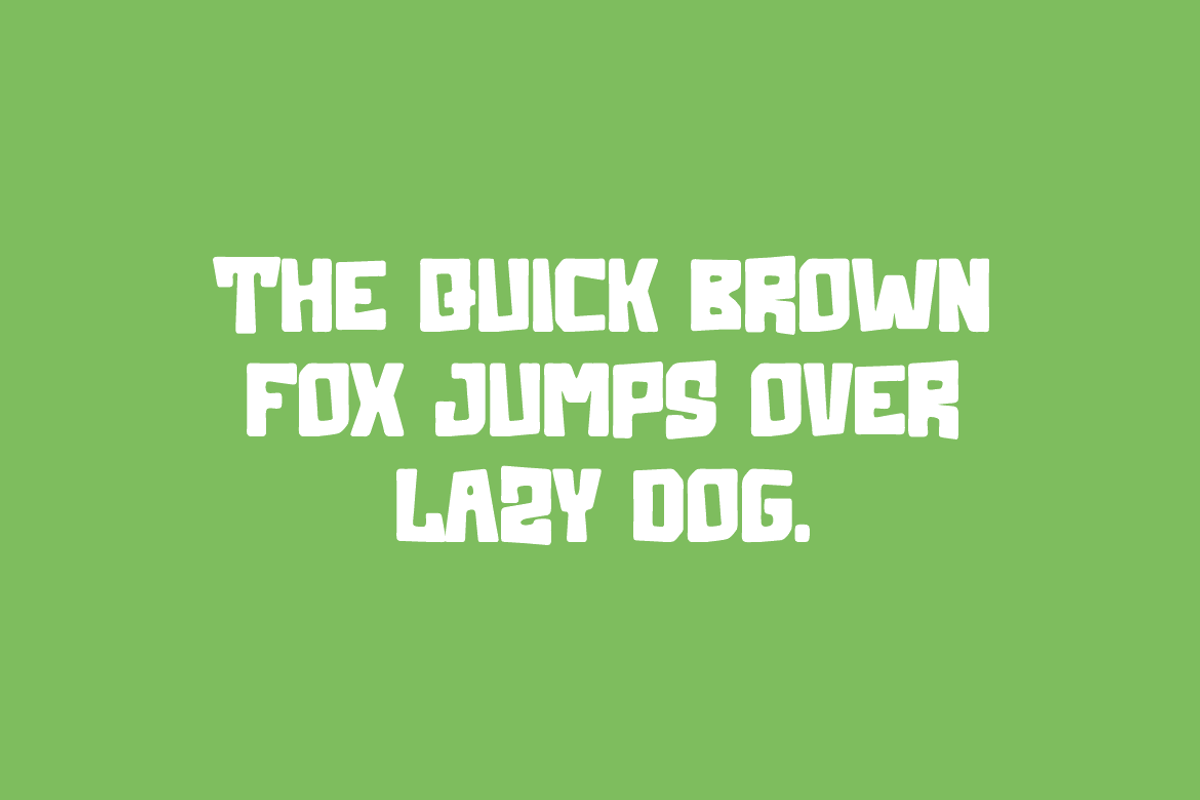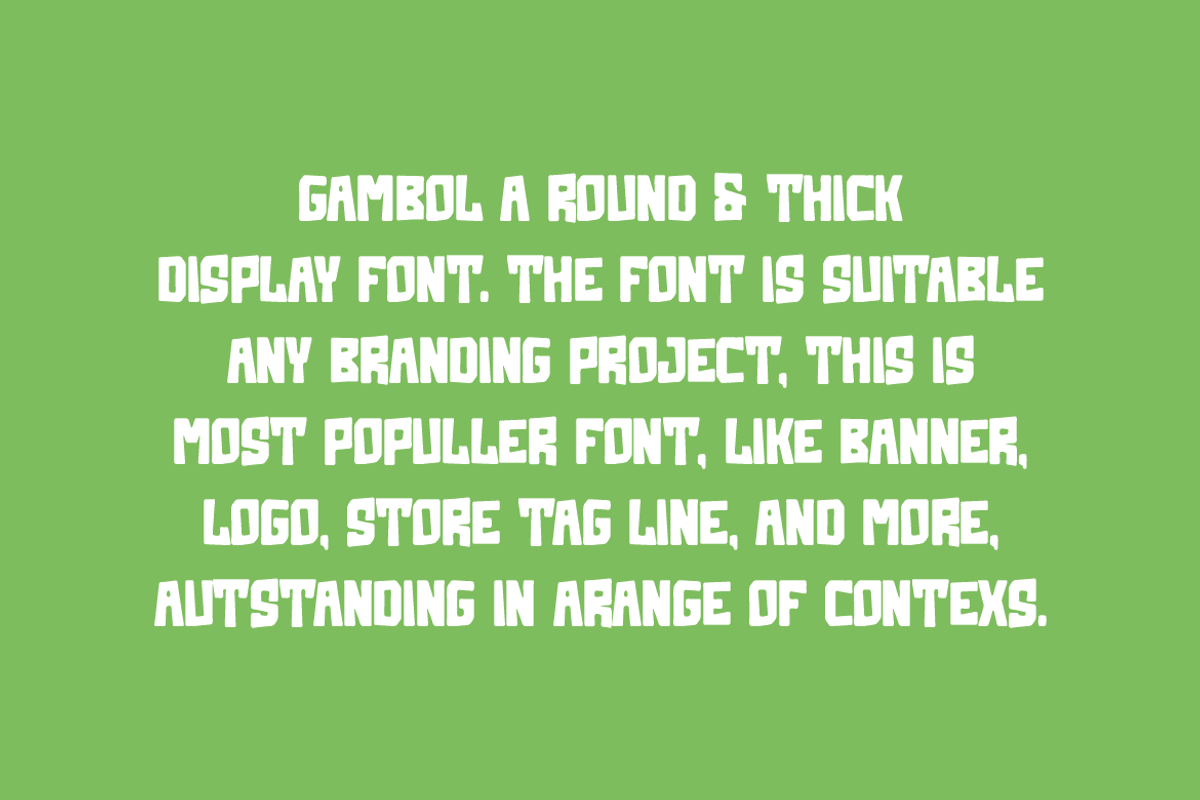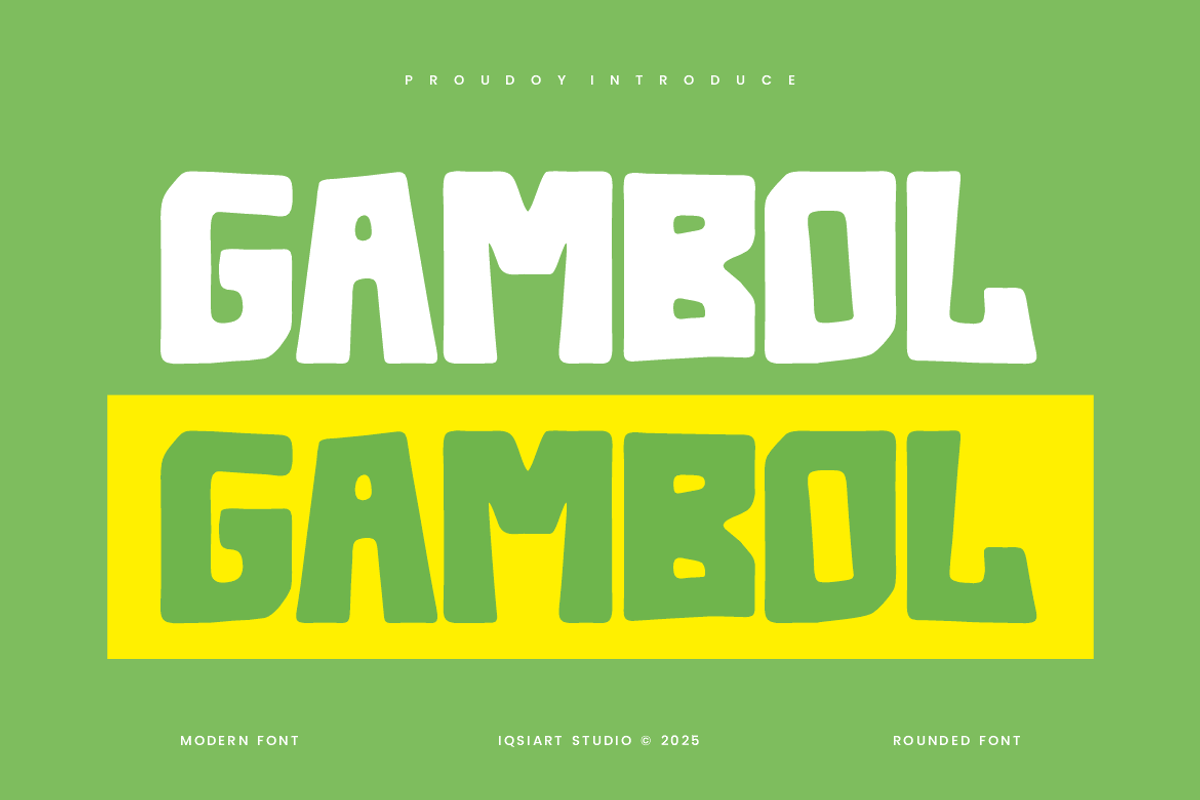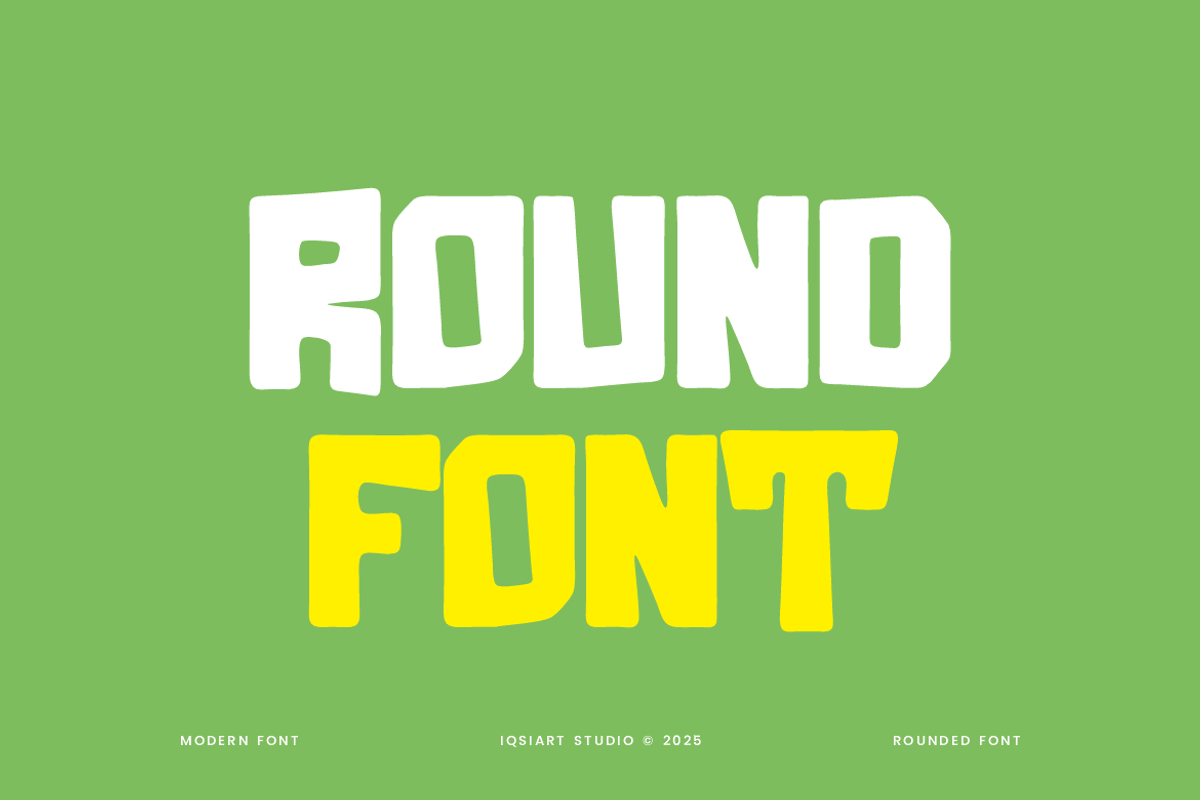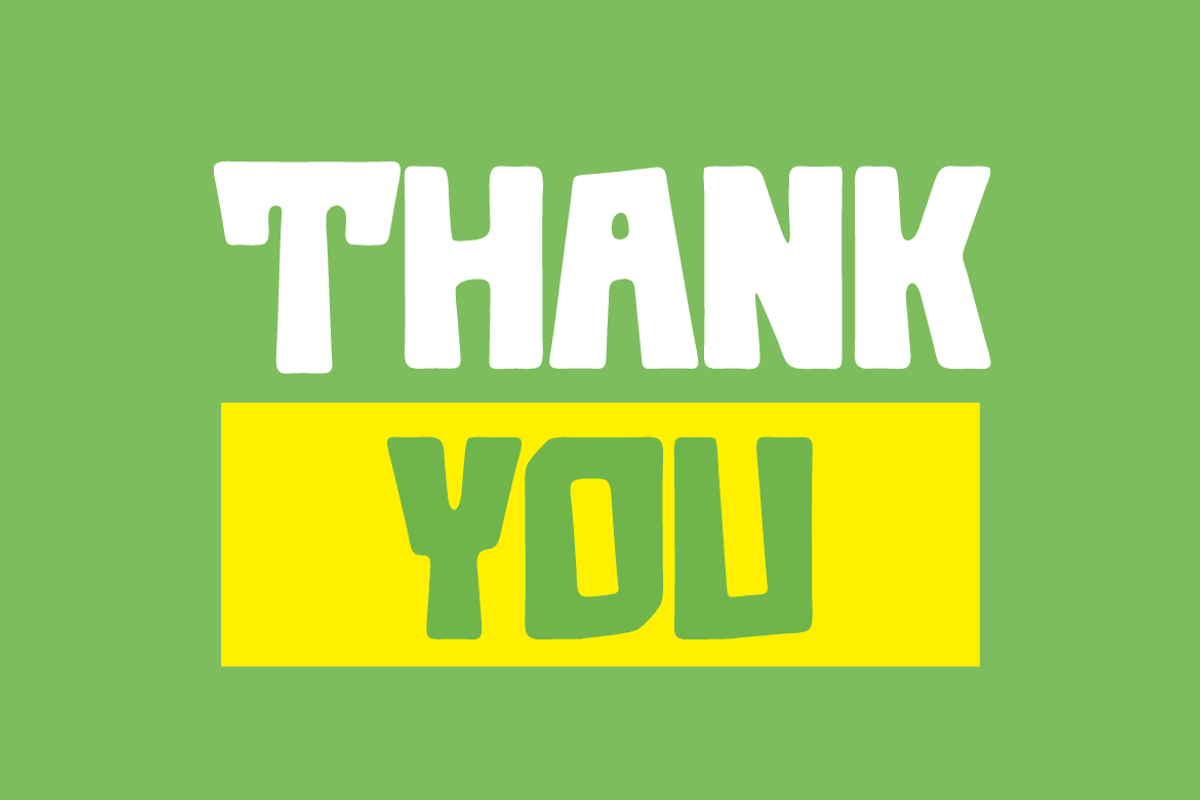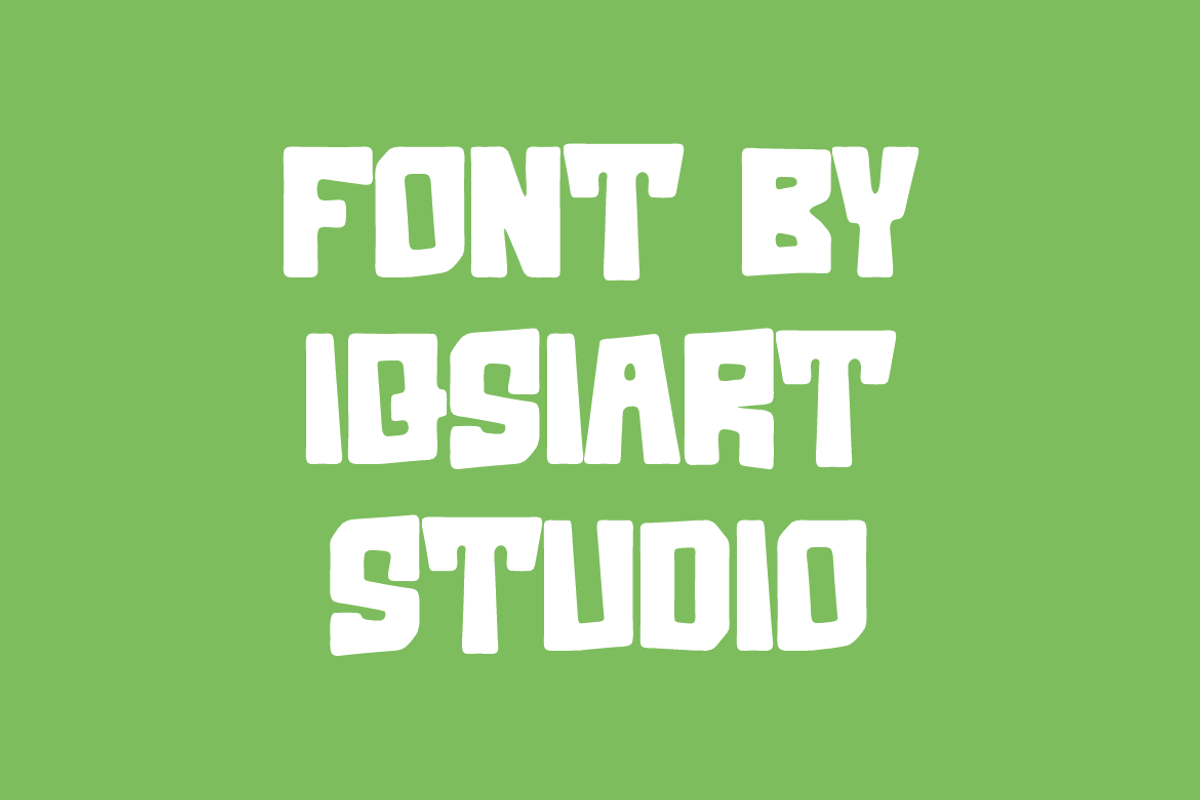
Gambol - Round Font
Gambol Font is a best and authentic display font. This font can be used for your various needs. We provide various themes and font styles. visit our profile to get a wide variety of themes and different font styles you need.